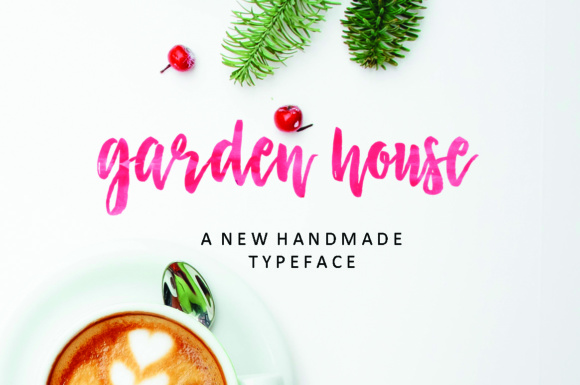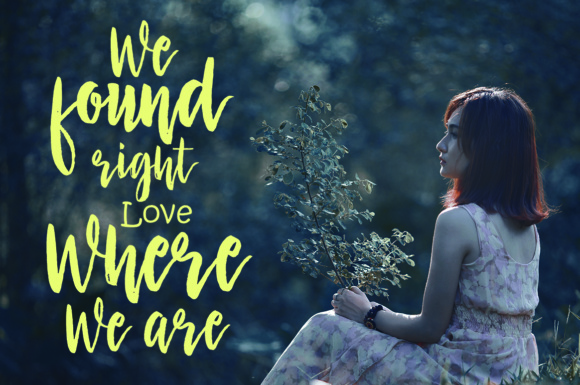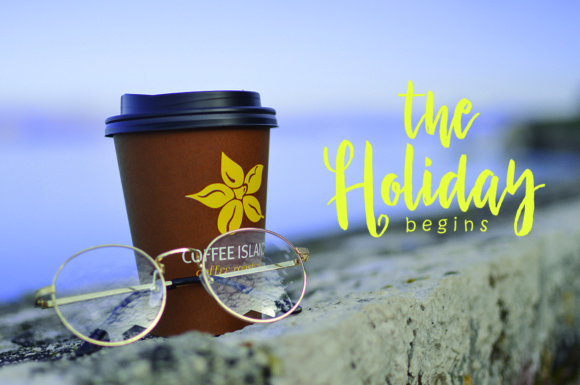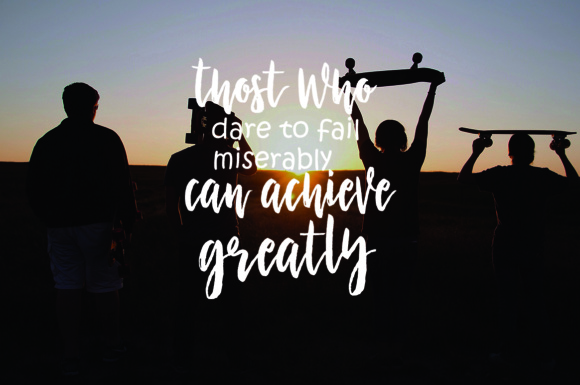
Garden House Font
About Garden House Font
Garden House is a beautiful and slanted script font that can give your projects a much needed dose of charm and elegance. This font has swashy alternates that will add some uniqueness to your works, and complements warm and inviting design scapes.